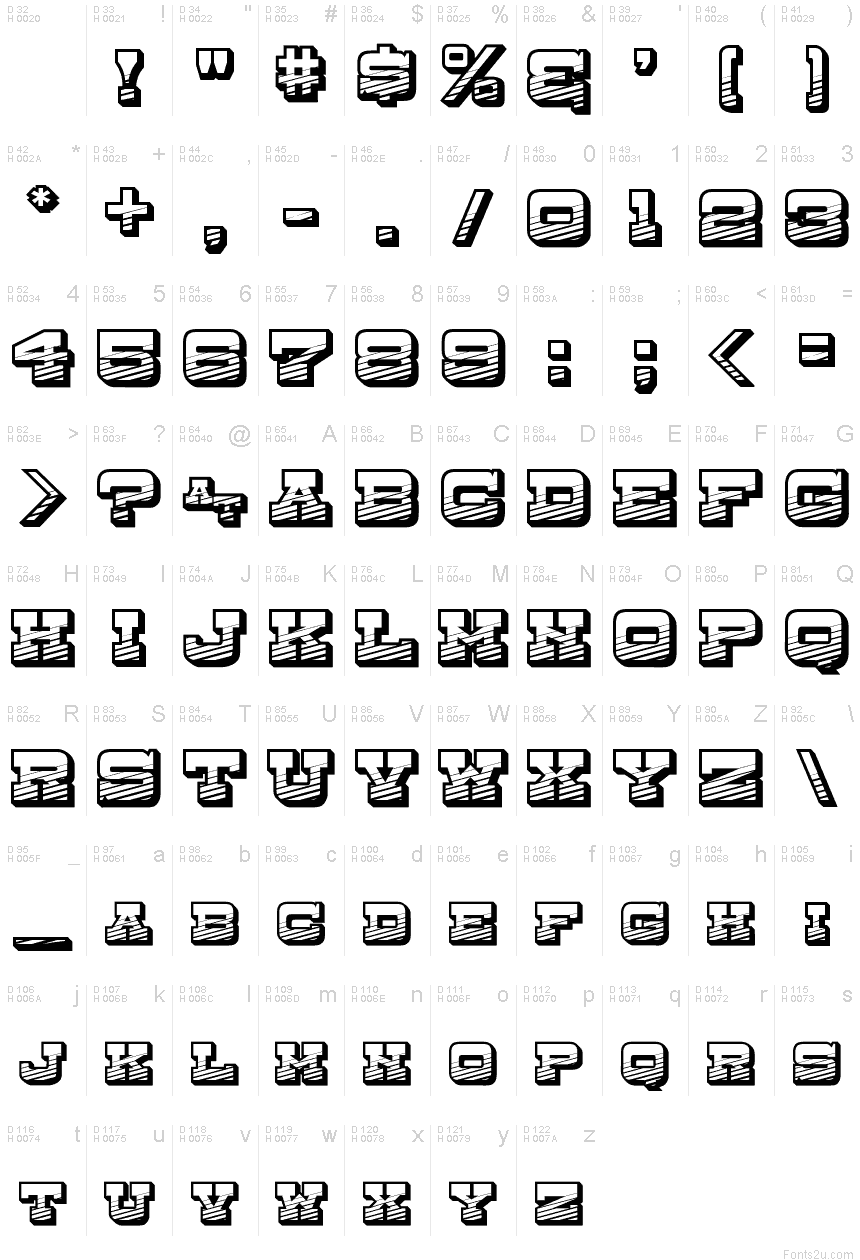
Dry Goods Emporium SmC JL
Dry Goods Emporium SmC JL font by Jeffrey N. Levine is a free decorative retro 3D display typeface that looks like it’s been pulled straight from a turn-of-the-century storefront sign. Chunky block letters sit on striped, stepped shadows, giving each word a stacked, dimensional feel that almost rattles like a wooden shop placard. The Dry Goods Emporium JL family vibe comes through in the tight spacing, strong outlines, and bold, engraved-style texture that catches the eye instantly.
Using Dry Goods Emporium SmC JL, you can give posters, circus or carnival graphics, vintage packaging, logos, banners, and signage an authentic old-time merchant flair. This free font shines at large sizes, where the layered stripes and shadow work feel tactile and architectural. Pair it with a simple, unadorned grotesque or classic serif for supporting text so its ornate, shop-sign character can take center stage.